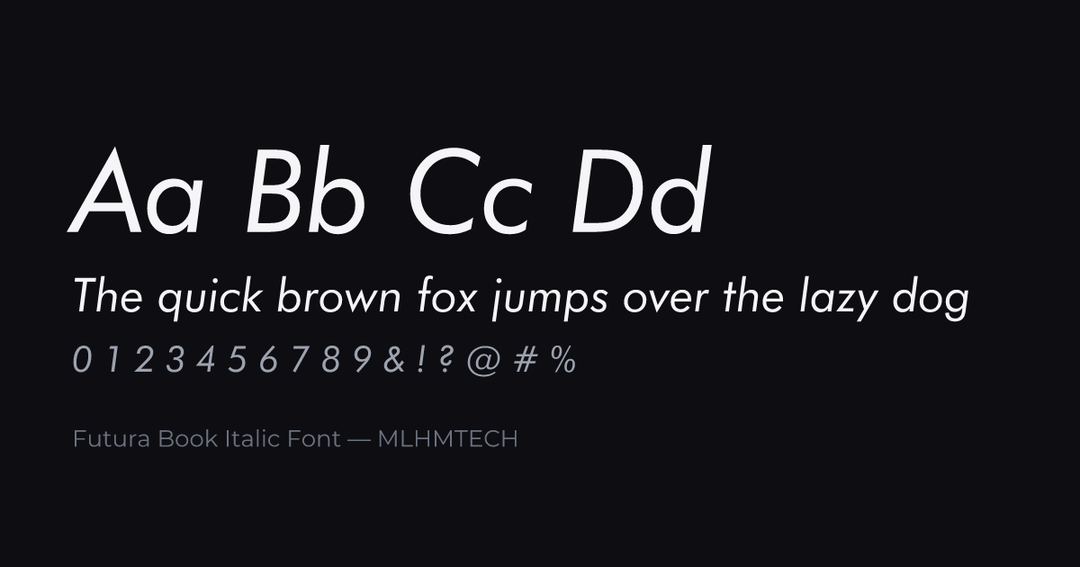
Futura Book Italic Font
Futura Book Italic is a timeless sans-serif font with a subtle slant, ideal for adding sophistication to your projects. This TTF file is ready to install and use.
Futura Book Italic is a variation of the iconic Futura typeface, designed by Paul Renner in 1927. Its geometric shapes and clean lines make it a favorite among designers for its modern yet classic appeal. The italic version adds a touch of elegance and movement, perfect for emphasis or creative typography.